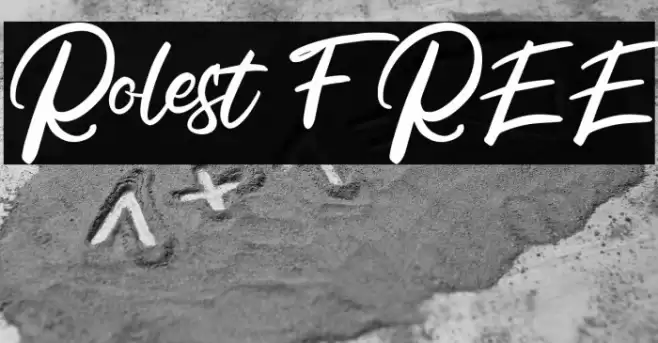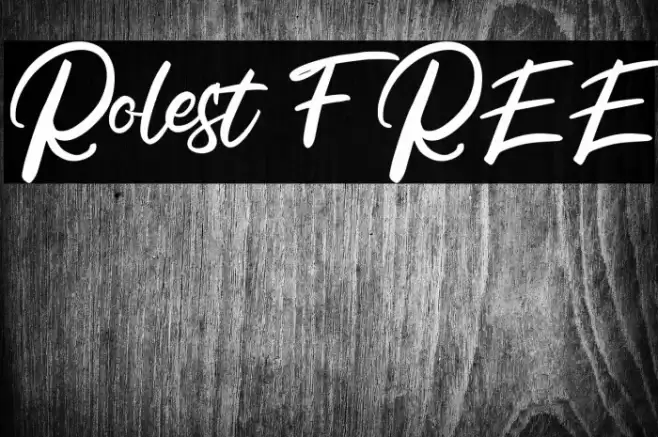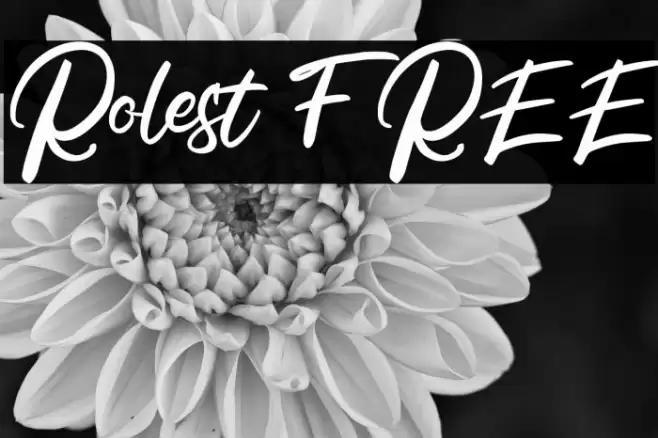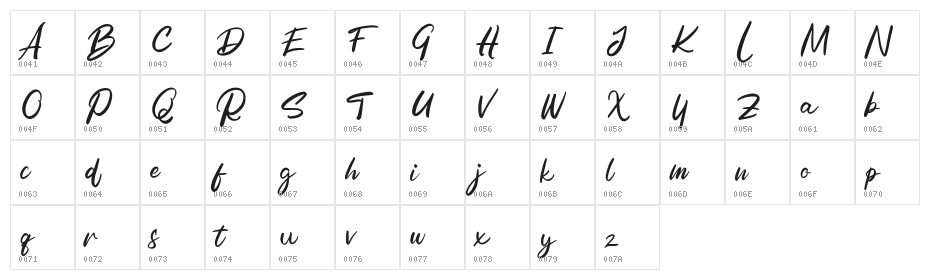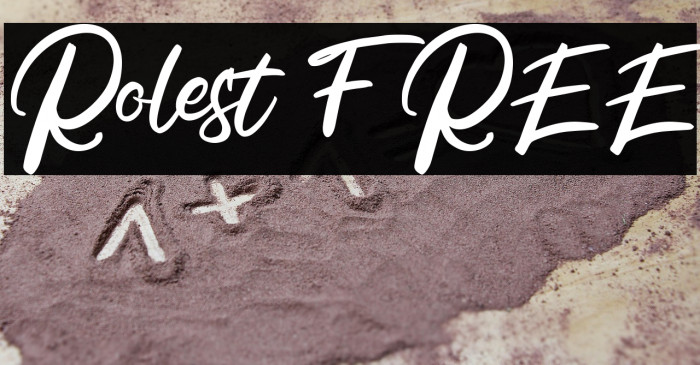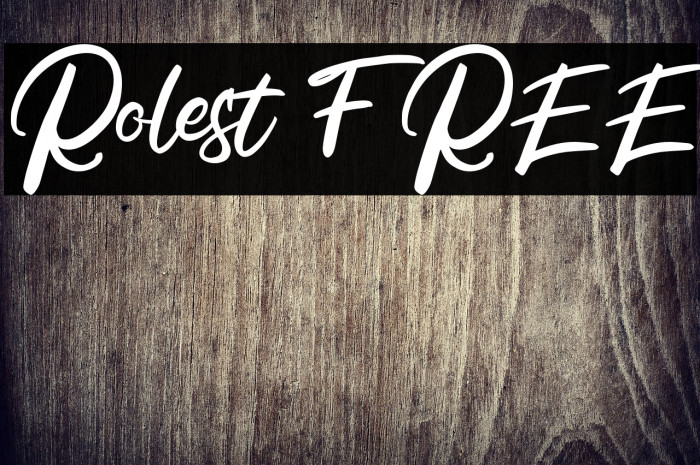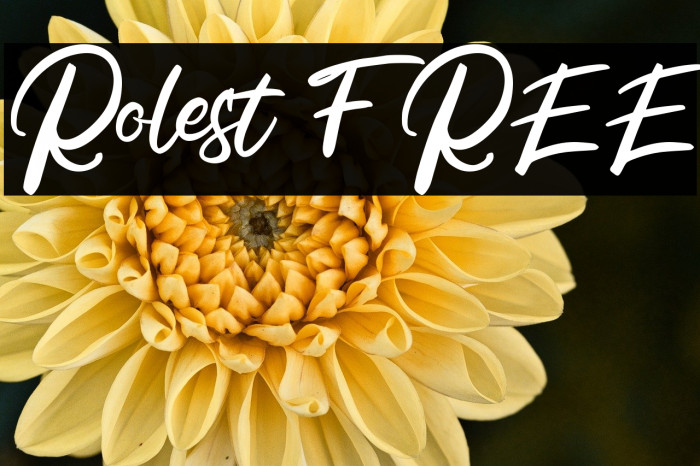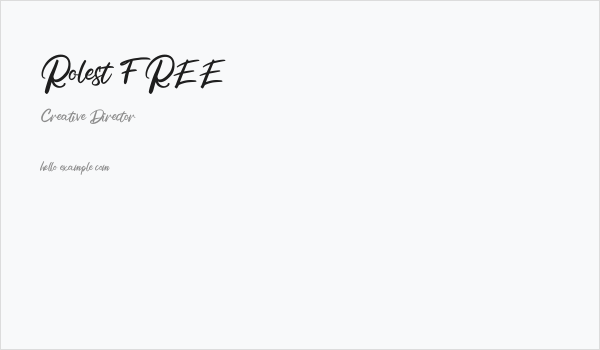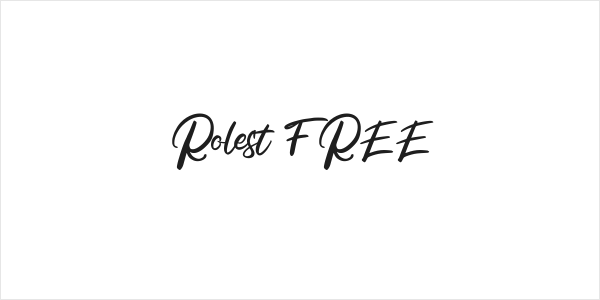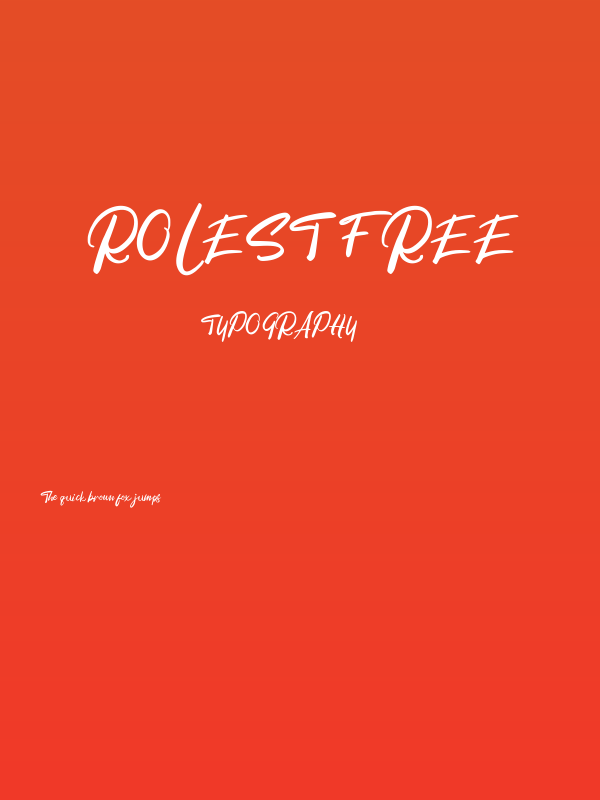
Rolest FREE Font
Rolest FREE Description
This font features a dynamic and flowing script style, characterized by its smooth, cursive strokes and elegant curves. The uppercase letters are bold and prominent, while the lowercase letters maintain a consistent fluidity, enhancing readability. The font exudes a sense of creativity and sophistication, making it ideal for projects that require a personal touch. Its design is both modern and timeless, suitable for a variety of applications. The characters are well-spaced, ensuring clarity and legibility, even in smaller sizes. The overall aesthetic is both artistic and professional, making it versatile for both formal and informal uses.
A dynamic script font with smooth, cursive strokes and elegant curves from Regular fonts.
- Proposed Projects: Ideal for wedding invitations, branding, greeting cards, and elegant packaging.
- Use Case: Logos, Invitations, Branding